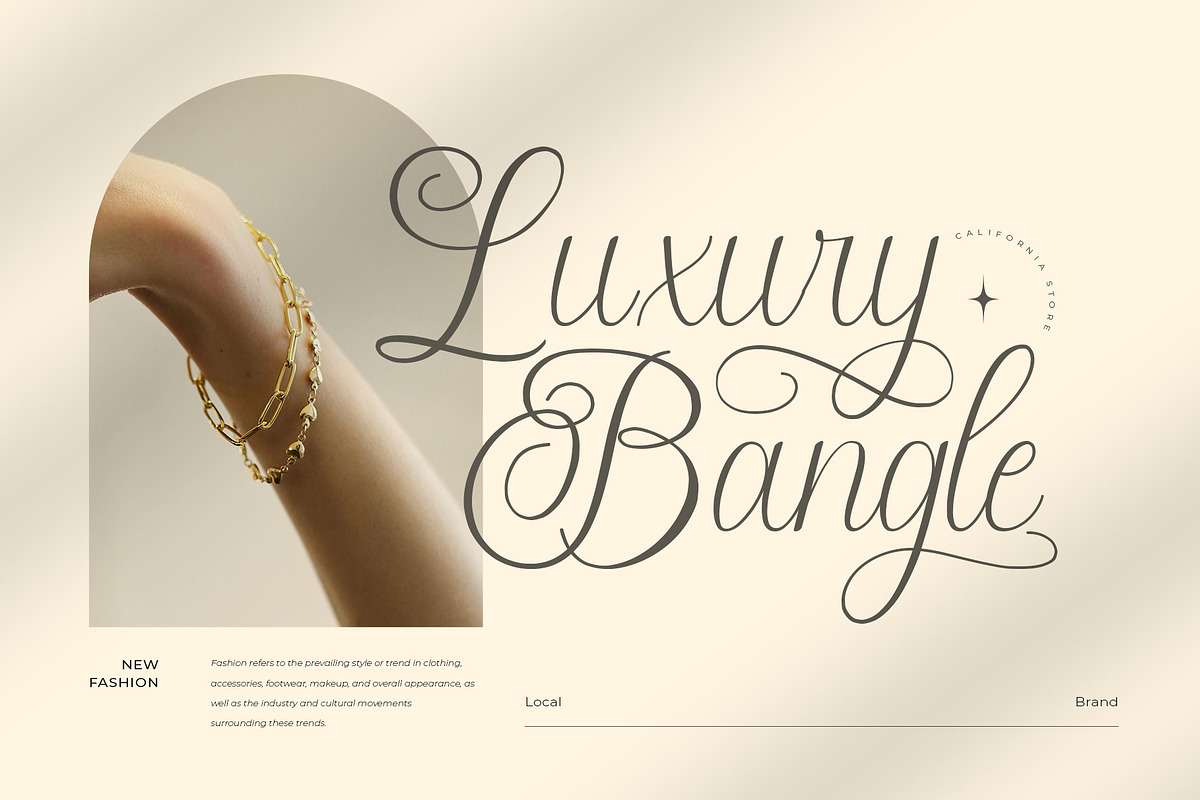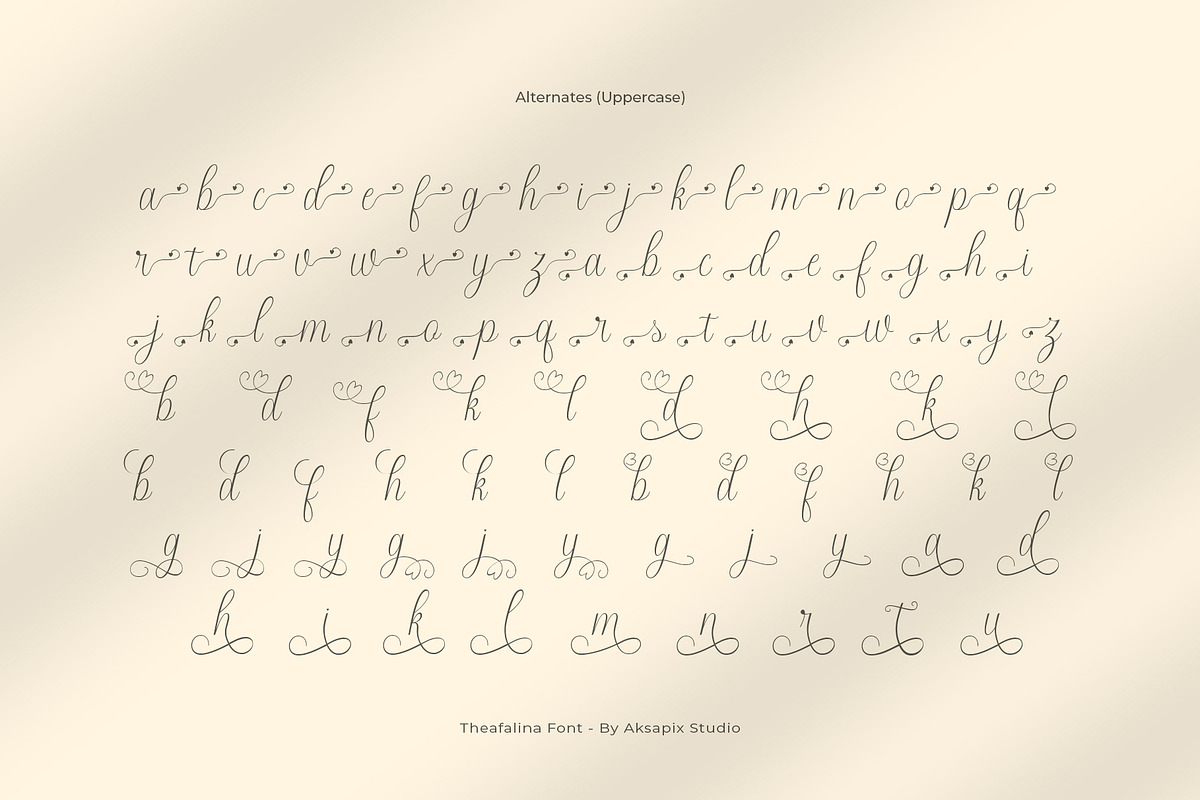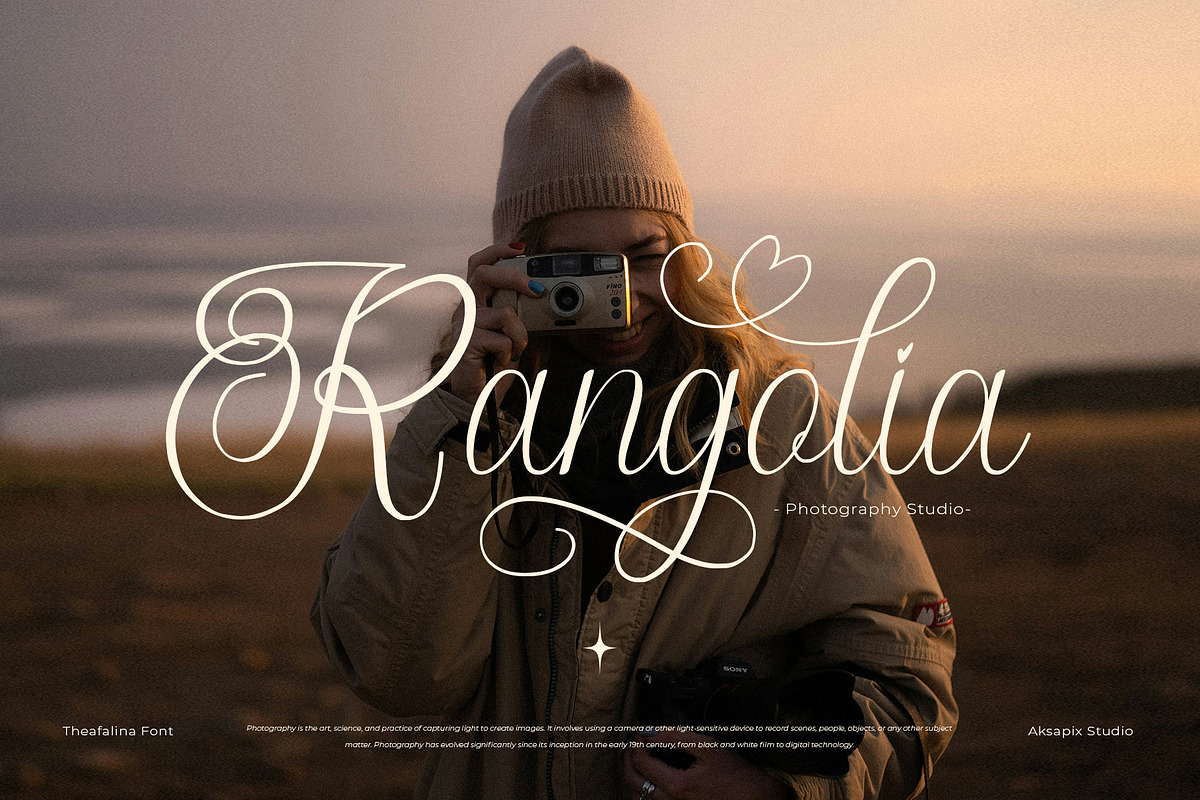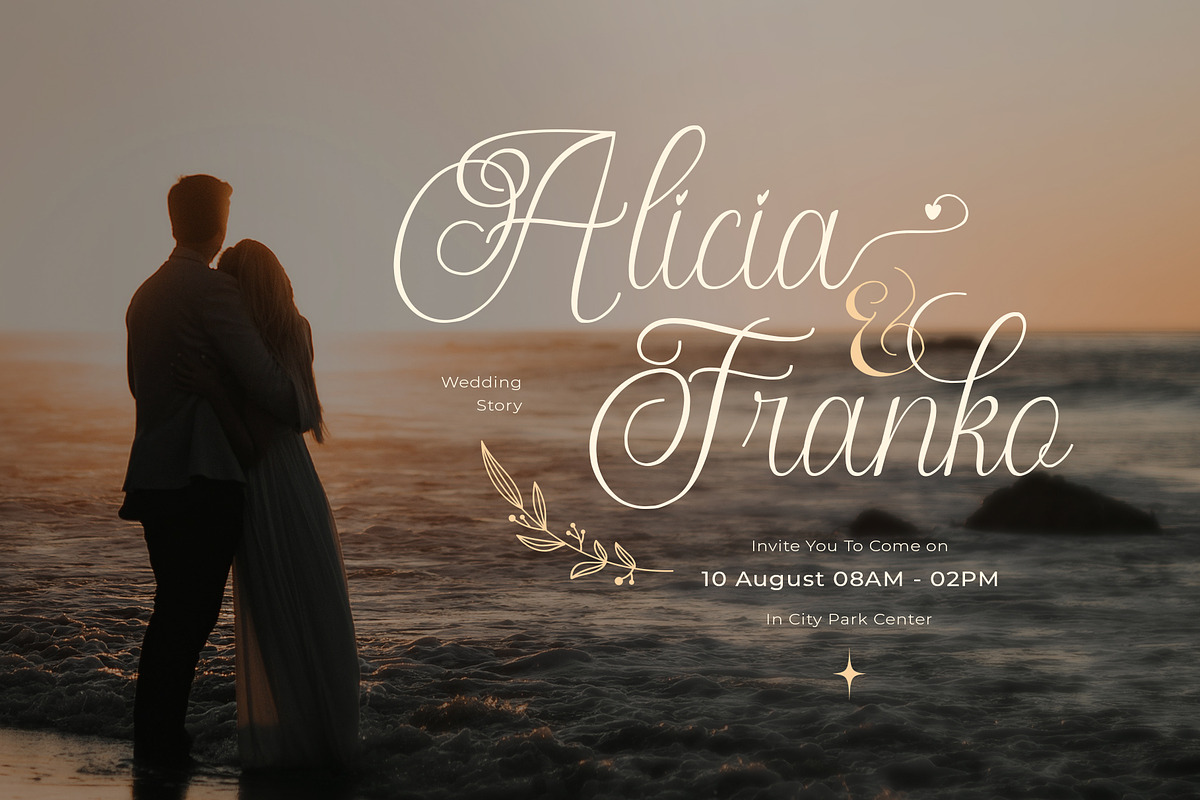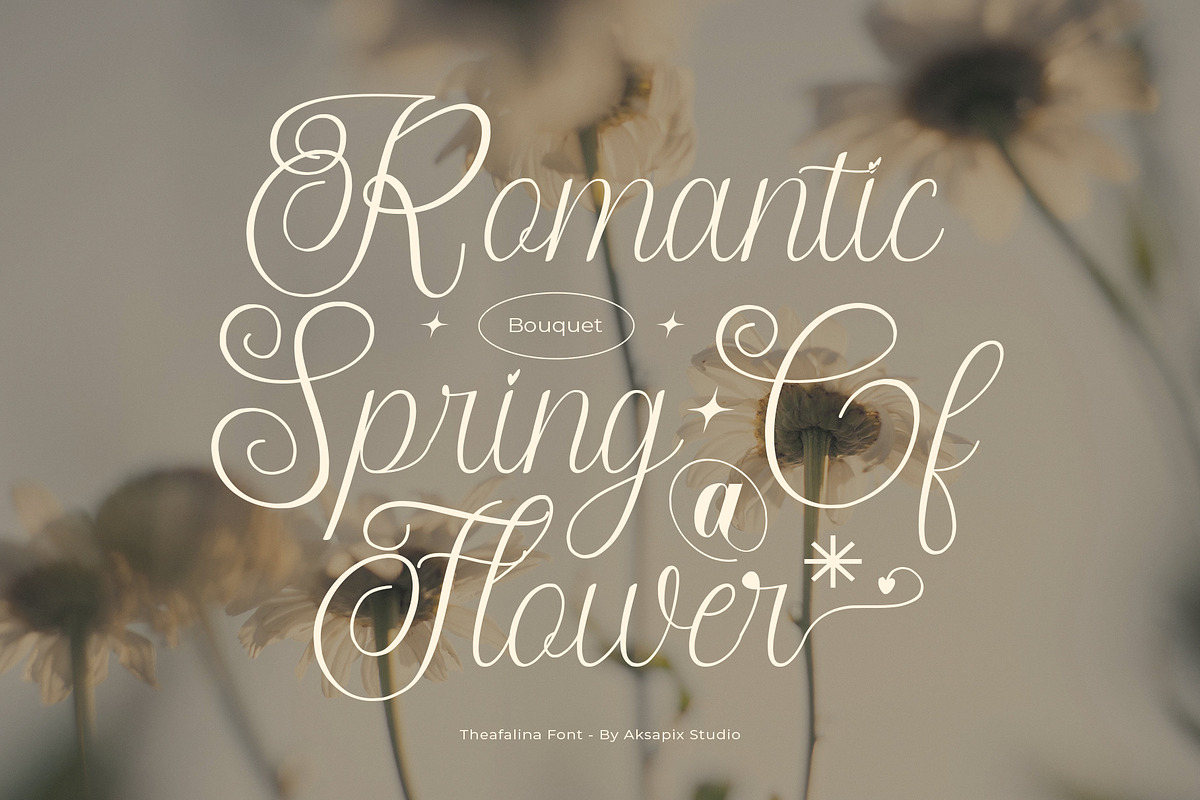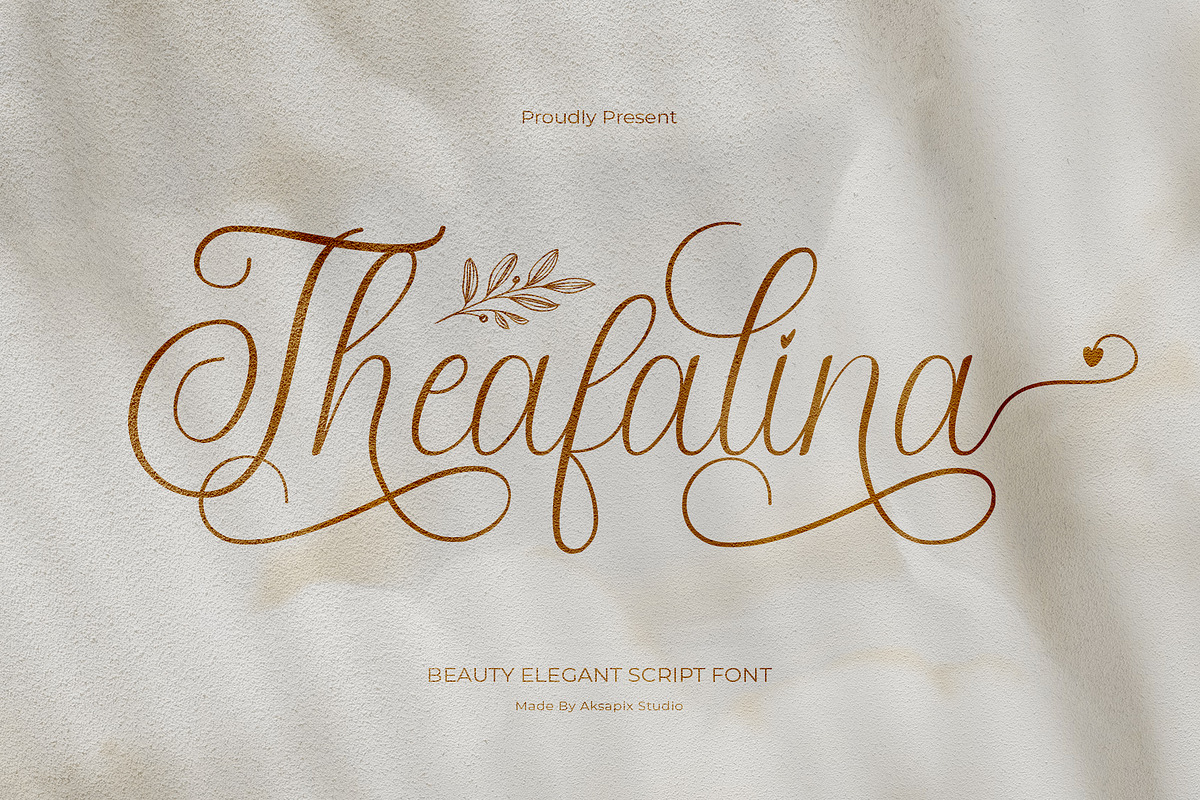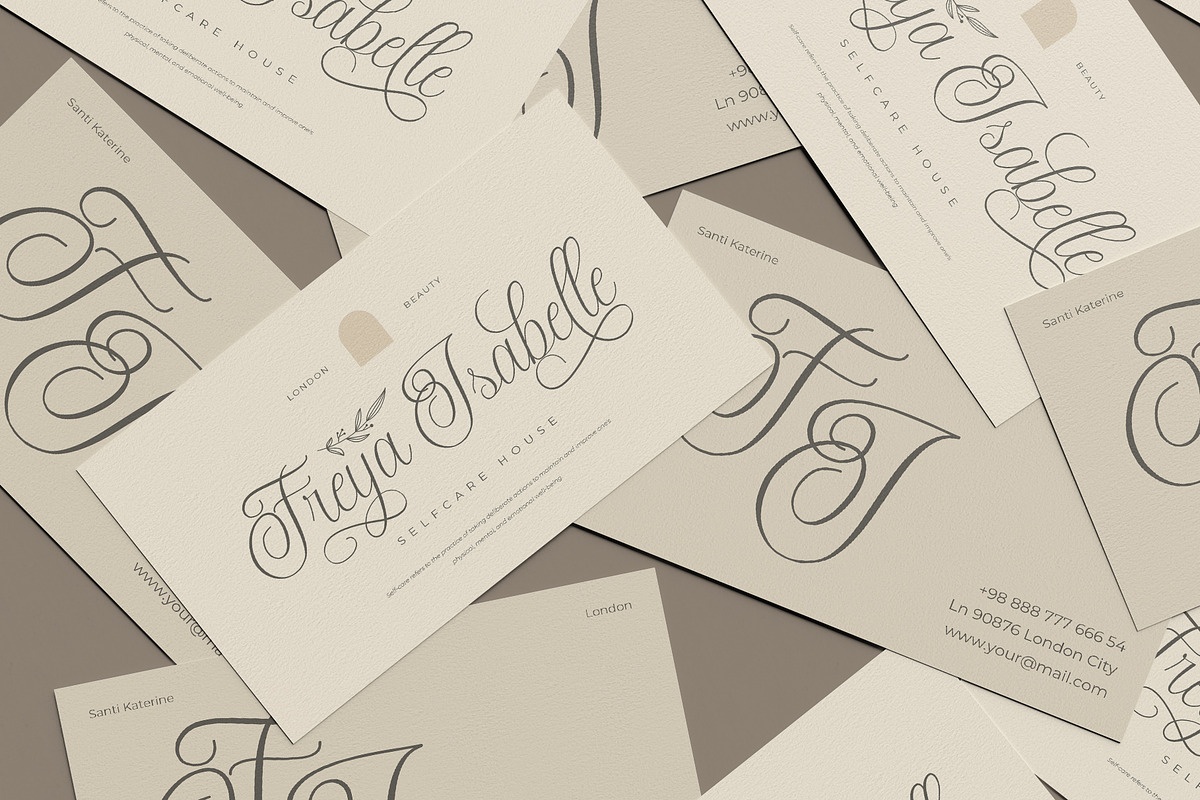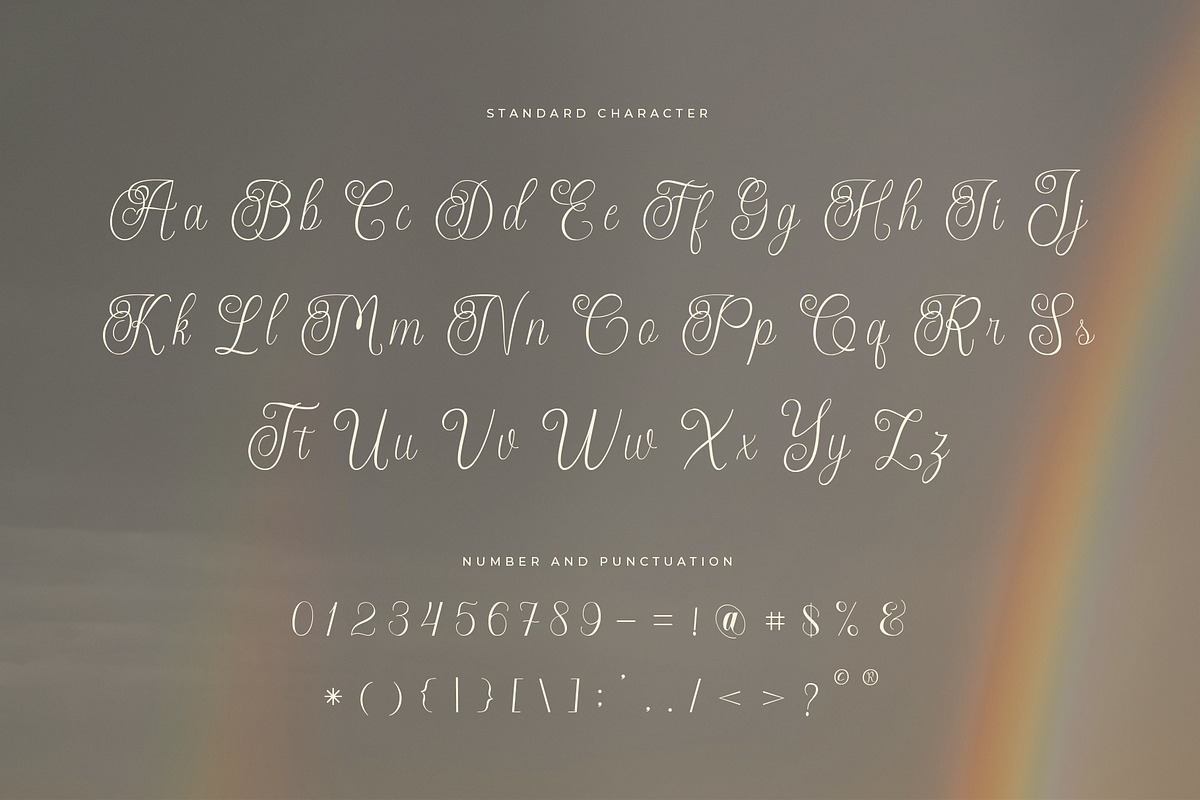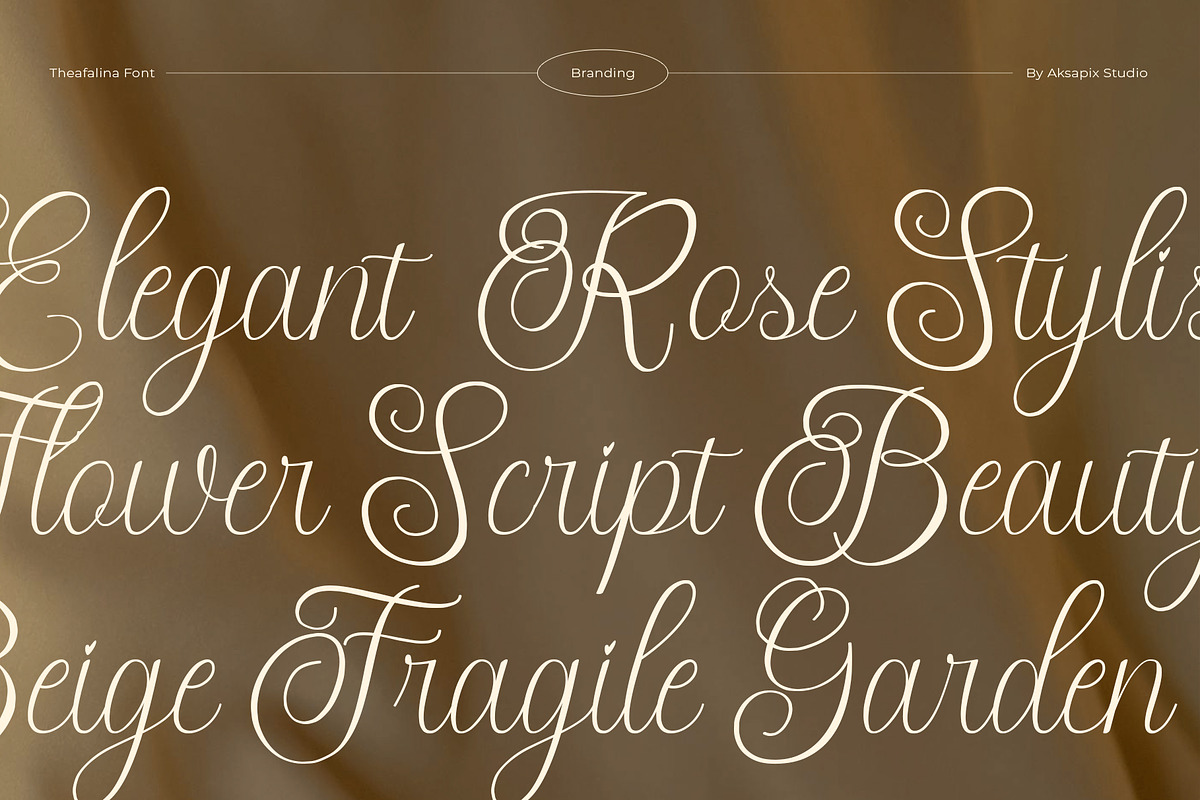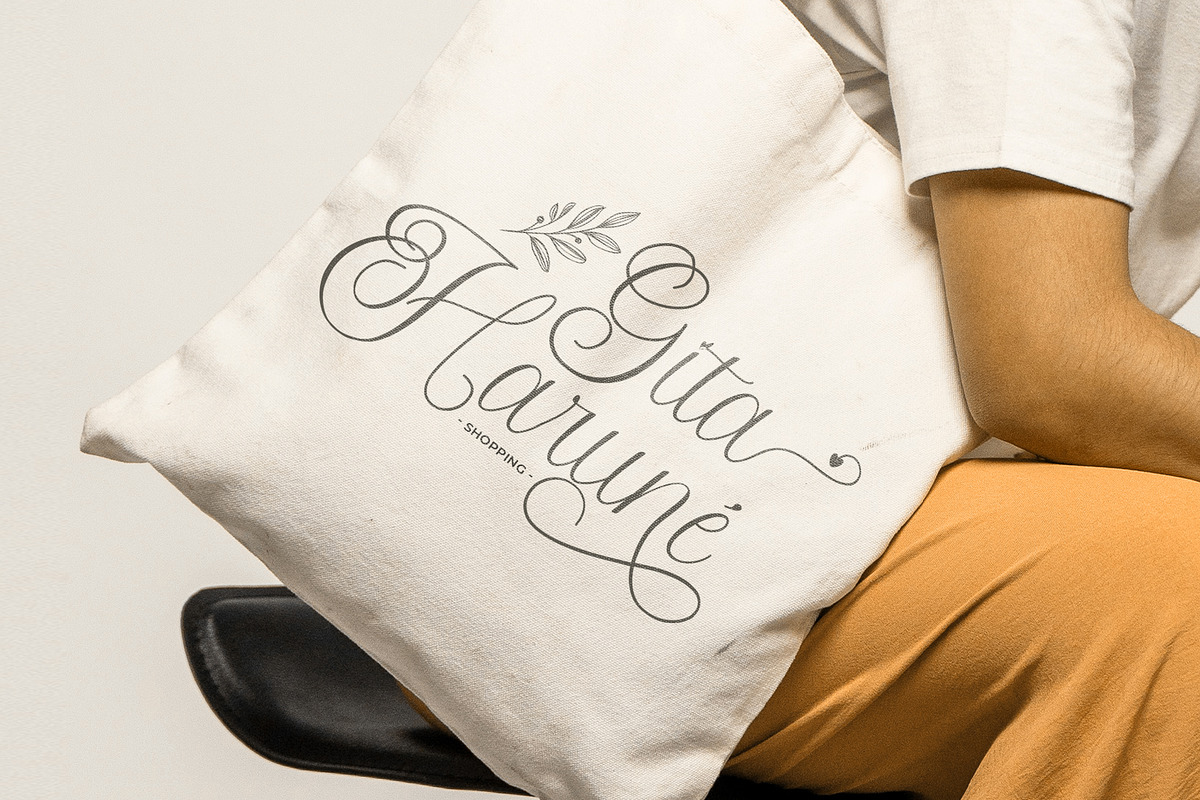
Theafalina - Beauty Elegant Script
Introducing Theafalina - Beauty Elegant Script, a stunning typeface that combines timeless elegance with modern beauty. This script font is perfect for adding a touch of sophistication and grace to any design project. With its delicate curves and stylish alternate characters, Theafalina offers versatility and charm, making it ideal for a wide range of applications.
Multilingual Support +Stylistic Alternates: Enhance your designs with unique stylistic alternate characters that add a personalized and creative touch.
Wedding Invitations
Branding and Logos
Greeting Cards
Editorial Design
Elevate your designs with the refined elegance of Theafalina - Beauty Elegant Script. Whether you’re crafting a heartfelt invitation, a sophisticated logo, or a stylish social media post, this font adds a touch of beauty and elegance to every project.